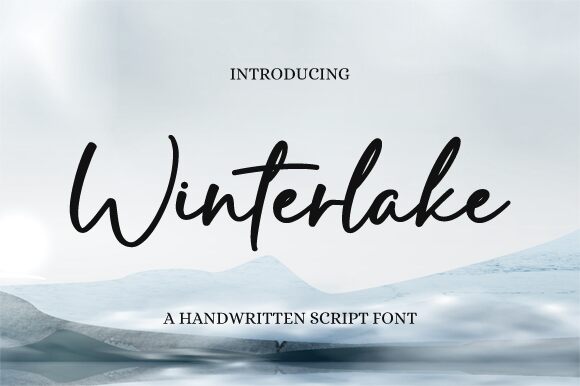
Winterlake
Winterlake font by Graphix Line Studio is a free handwritten font that combines casual elegance with a modern aesthetic. Its organic flow and relaxed mood bring both freshness and creativity to the design process.
This friendly typeface is versatile for plenty of uses including posters, website headers, book covers, watermarks, menu cards, beauty product labels, displays for magazines, logos for fashion brands or personal businesses, packaging boxes, and more.